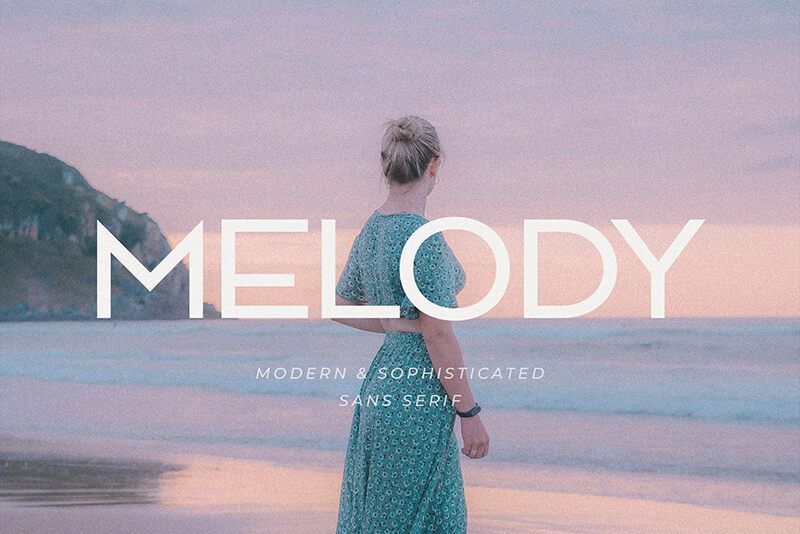
Melody Regular
MELODY is a striking, sans-serif font that exudes a bold and contemporary elegance. Designed by BrandSemut, this expanded font commands attention with its eye-catching letterforms and powerful presence. The robust, angular shapes and generous proportions give the typeface a distinct, statement-making character, making it an ideal choice for headlines, branding, and other high-impact design applications.
Melody's expanded width lends it a sense of grandeur and prominence, while the clean, sans-serif aesthetic ensures a modern, versatile appeal. This font excels in creating impactful typographic compositions, whether in print, digital, or environmental design. Its confident, yet refined style makes it a versatile tool for designers seeking to craft bold, memorable visual identities and attention-grabbing displays.